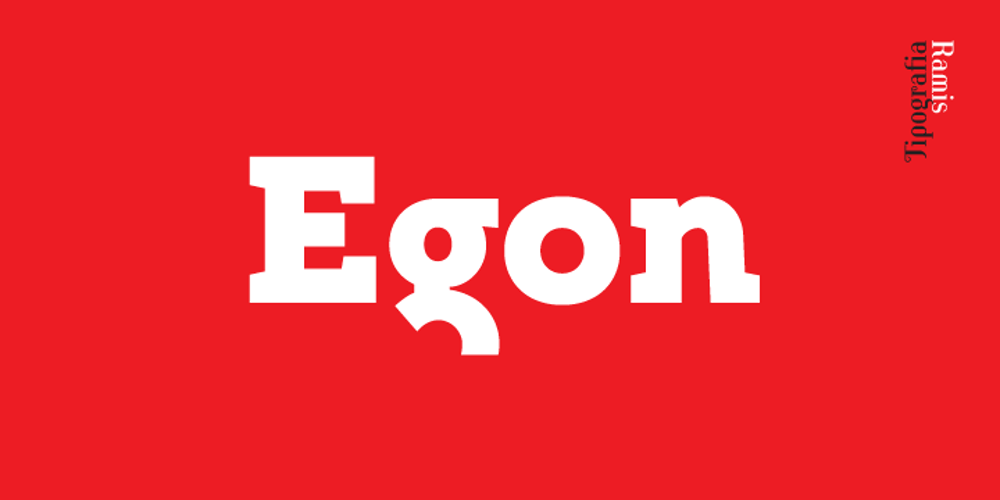
Egon Font Family was designed by Ramiz Guseynov and published by TipografiaRamis. Egon contains 10 styles and family package options. Egon is a contemporary Slab-Serif typeface family built in ten styles—extra-light, light, regular, bold and black weights in roman and italic respectably. This is a refreshed (second) edition of Egon Serif, originally designed in 2008. The typeface has been updated—four new styles in ExtraLight and Black weights were added to the family and minor adjustments to glyph shapes (mostly italics) have been made.The typeface is designed with industrial and architectural flavor, as homage to Egon Eiermann, one of Germany’s great architects of 20th century. Egon is ideal as text and display font for publication use. Egon is released as OpenType single master with a Western CP1252 character set.